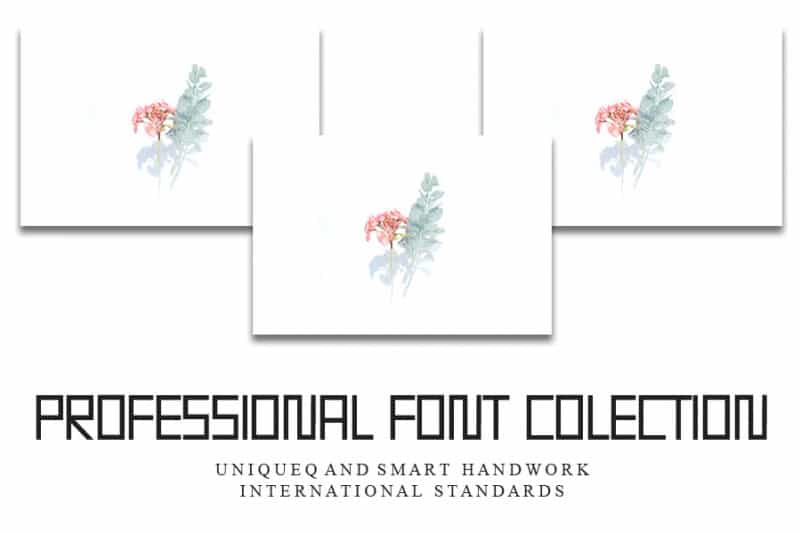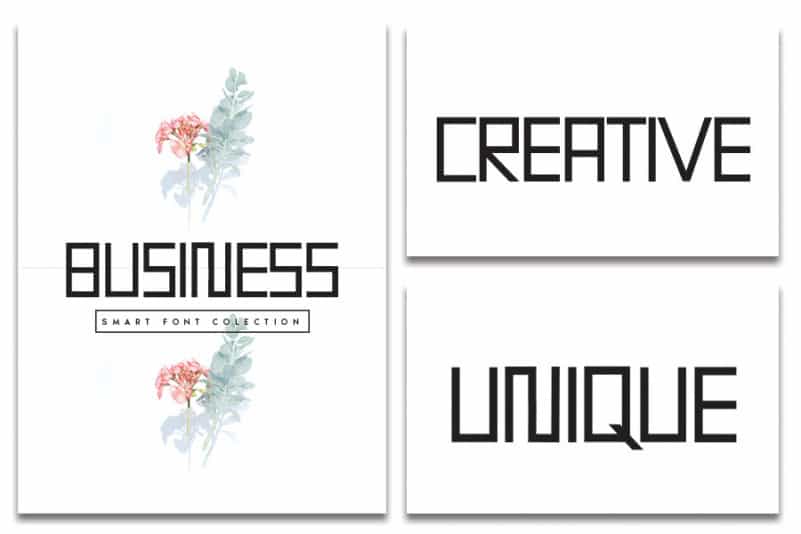
Begonia Display Font
Begonia Display Font is a chunky and unique display font. Get creative with its unique playfulness, and use it to brighten up your upcoming projects!